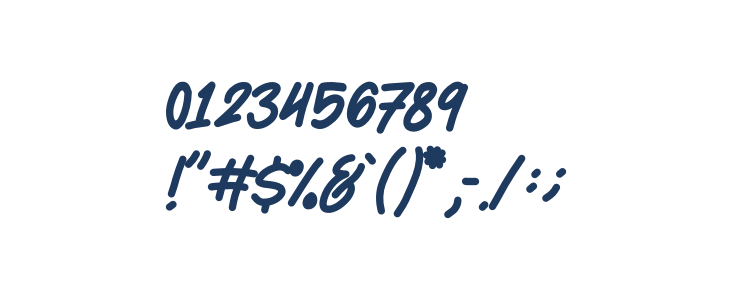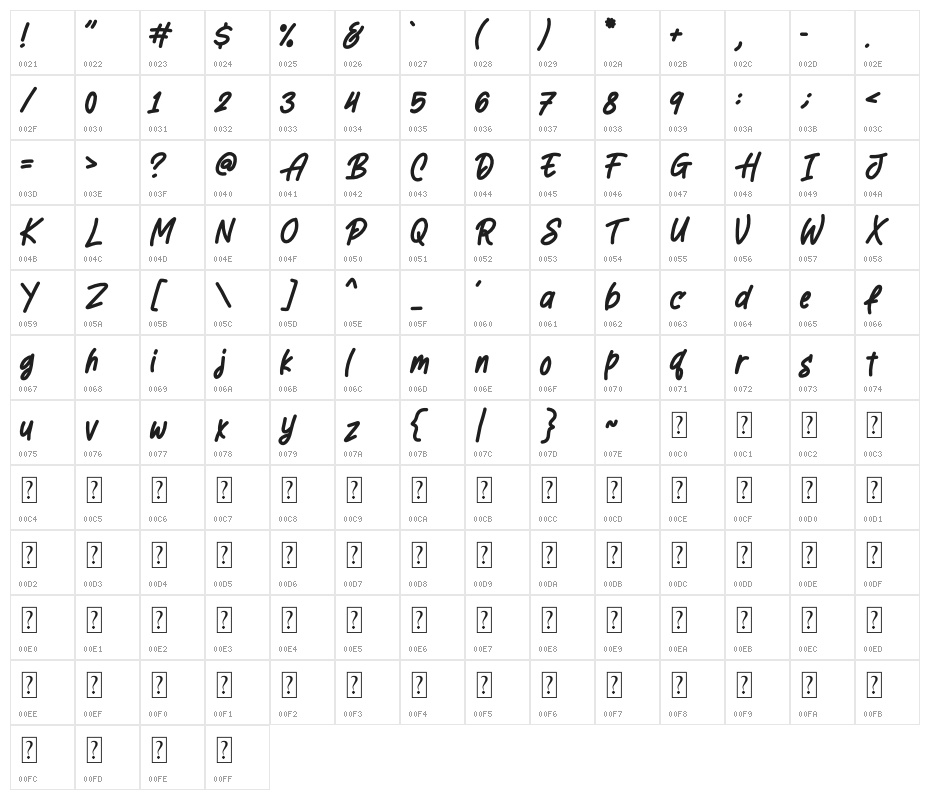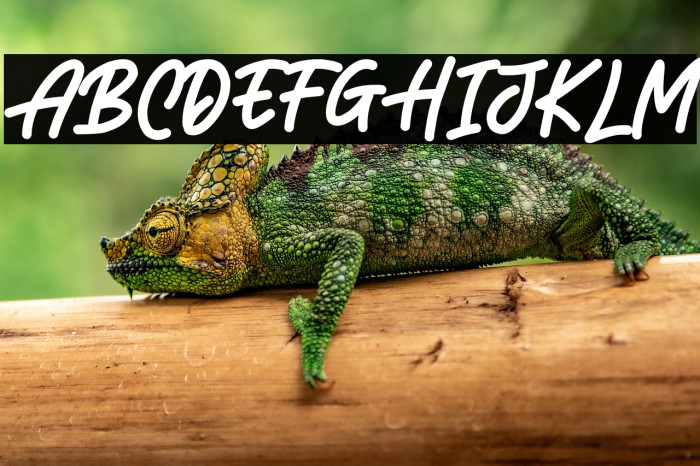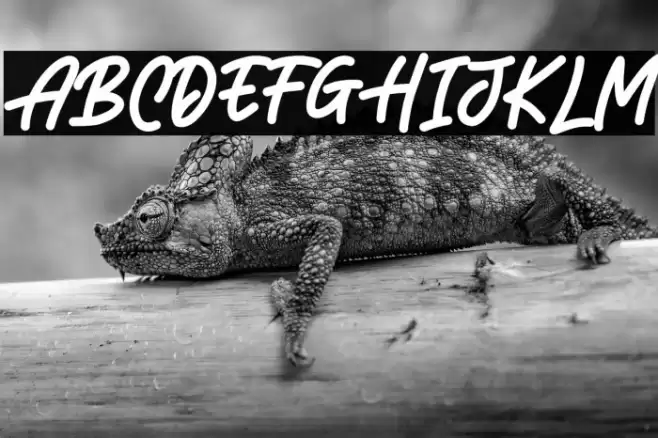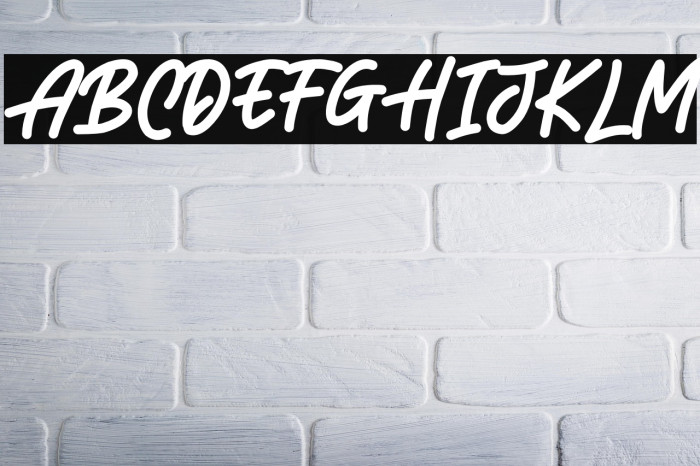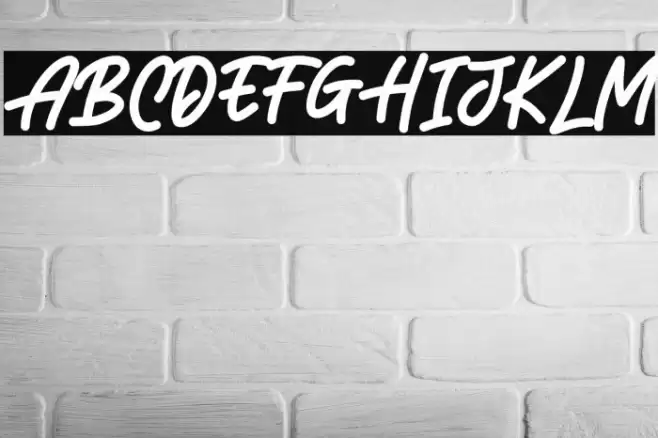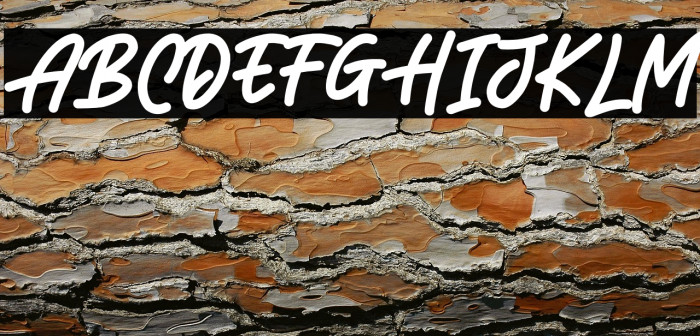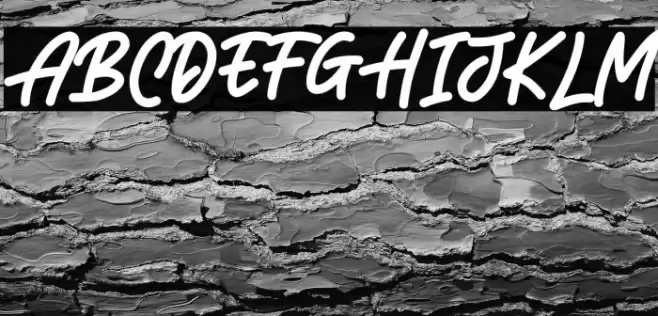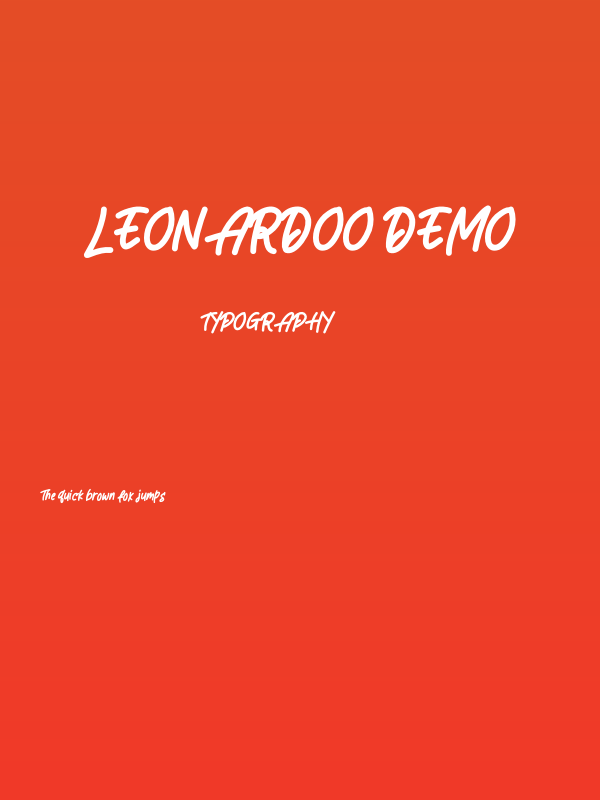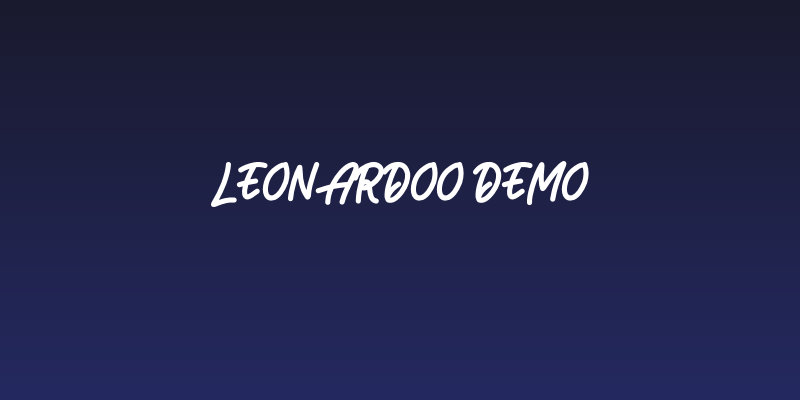
LEONARDOO DEMO Font
LEONARDOO DEMO Description
This font exudes a bold and energetic style, characterized by its handwritten appearance. The letters are fluid and dynamic, with a slight slant that adds a sense of motion and personality. The strokes are thick and consistent, providing a strong visual impact. The uppercase and lowercase letters maintain a cohesive style, while the numerals and special characters are equally expressive. This font is ideal for projects that require a personal touch or a sense of informality, such as greeting cards, posters, or branding materials that aim to convey creativity and approachability.
| Proposed Projects | Greeting cards, posters, branding materials, creative projects. |